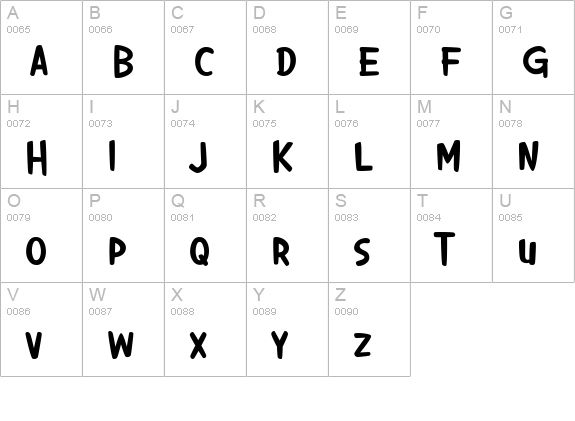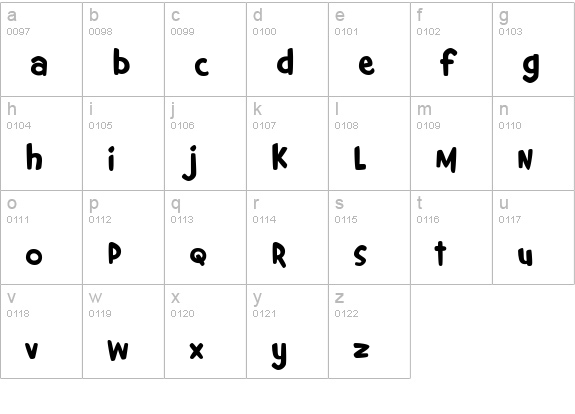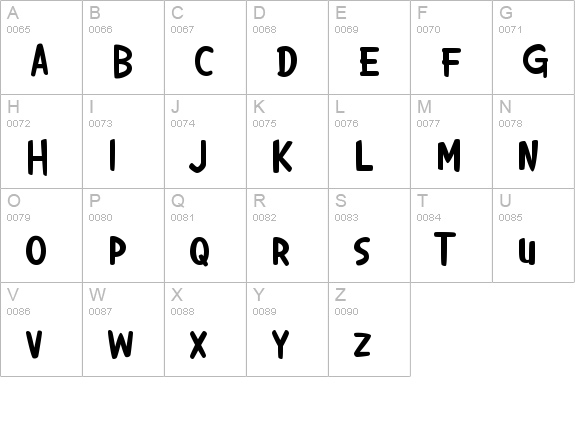
Giggles BTN Bold is a strong, high-contrast variant in the Giggles typeface family \xE2\x80\x94 well suited to headlines, attention-grabbing titles, and strong calls-to-action.
Giggles BTN Bold font is a playful and whimsical typeface that exudes joy and cheerfulness. With its bold and rounded letterforms, this font is perfect for adding a touch of fun to any project. Whether you're designing a party invitation, a children's book, or a logo for a creative brand, Giggles BTN Bold is sure to bring a smile to your audience's face. The best part? Giggles BTN Bold font is available for free download at FontsMarket.com. So go ahead and add a splash of happiness to your designs with this delightful typeface!